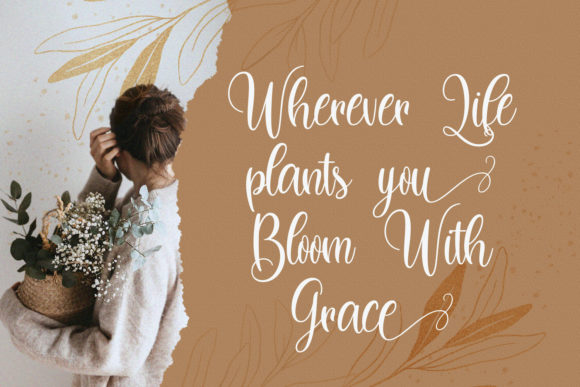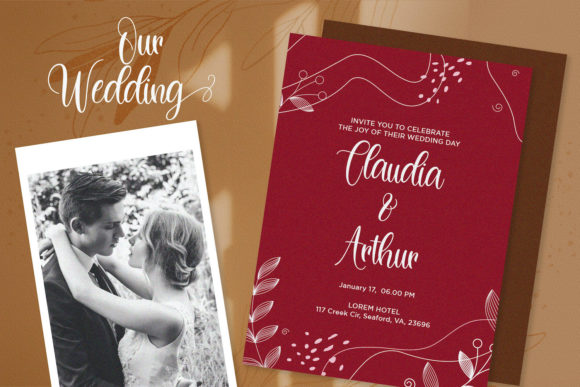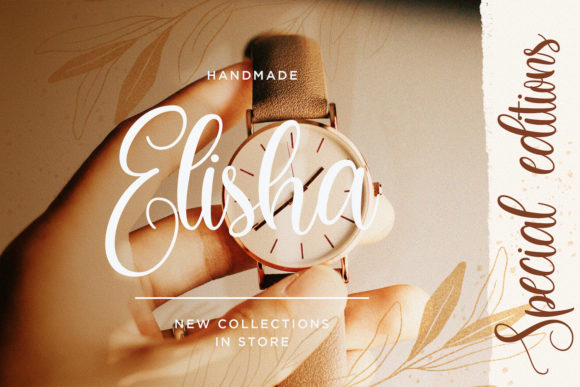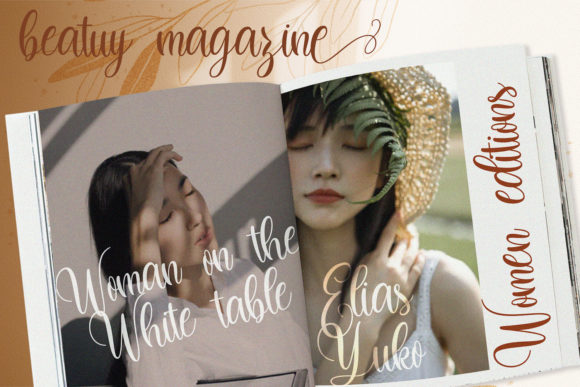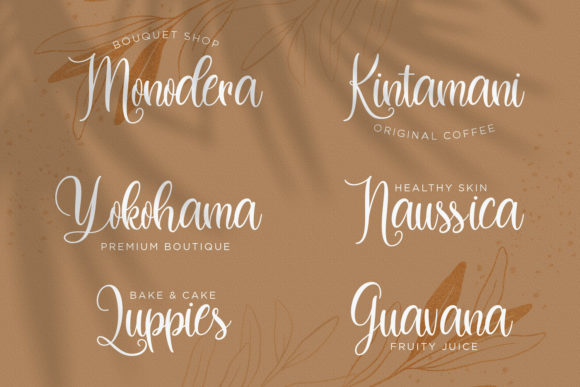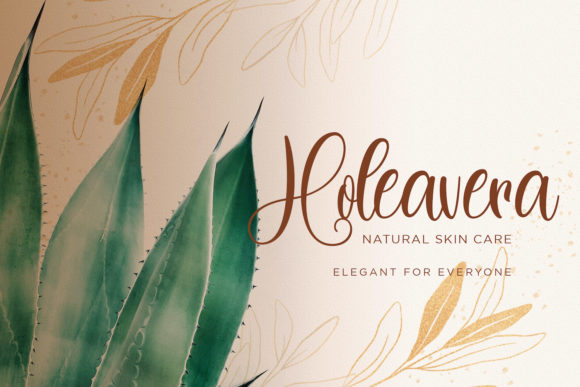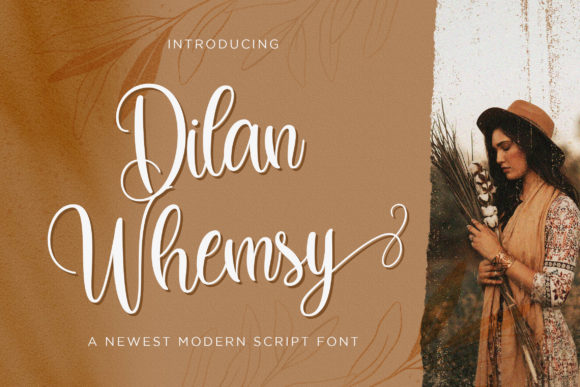
Introducing Dilan Whemsy Font: Elevate Your Designs with Elegance
In the world of typography, a font can make or break a design. For designers and crafters looking for that perfect touch of elegance and delicacy, the Dilan Whemsy Font is an exquisite choice. This beautifully crafted, handwritten font is not just a typeface; it’s an experience that brings a new level of sophistication and charm to any project.
The Essence of Dilan Whemsy
Dilan Whemsy is characterized by its delicate, elegant, and flowing script. Each character is meticulously designed to ensure a harmonious balance, making it versatile enough to complement a wide range of designs. Whether you’re working on a branding project, crafting beautiful stationery, or creating engaging digital content, Dilan Whemsy adds that unique flair that can transform your ideas into stunning visual realities.
Key Features of Dilan Whemsy Font
- PUA Encoding: Dilan Whemsy boasts PUA (Private Use Area) encoding, allowing easy access to a variety of glyphs and swashes. This feature empowers designers to explore a broader creative spectrum without the hassle of complicated font editing.
- Alternate Glyphs and Ligatures: The font comes equipped with a wealth of special features, including alternate glyphs and ligatures. These elements enable designers to add a personal touch to their work, ensuring each project stands out with its unique character.
- Wide Pool of Designs: The balanced and beautiful characters of Dilan Whemsy make it a perfect match for a diverse array of design projects. From feminine and elegant themes to more playful and whimsical concepts, this font adapts seamlessly.
Applications of Dilan Whemsy
The versatility of Dilan Whemsy makes it suitable for a multitude of applications:
- Branding and Logotypes: Create memorable brand identities with a touch of elegance.
- Stationery and Invitations: Elevate your paper goods with sophisticated and beautiful typography.
- Web and Digital Design: Enhance your digital platforms with a font that exudes both modernity and timelessness.
- Crafting and DIY Projects: Perfect for crafters, the font can add a professional and custom feel to handmade goods and DIY project documentation.
Tips for Using Dilan Whemsy Effectively
To make the most of Dilan Whemsy, consider the following tips:
- Experiment with Swashes: Use the glyphs and swashes to add dynamic beginnings and endings to your text.
- Mix and Match: Combine Dilan Whemsy with complementary fonts for contrast and visual interest.
- Adjust Size and Color: Play with the font size and color to create hierarchy and emphasis in your design.
Dilan Whemsy Font is more than just a typeface; it’s a design companion that brings elegance, versatility, and creativity to the table. With its delicate and flowing script, PUA encoding for easy access to glyphs and swashes, and features like alternate glyphs and ligatures, it’s a powerful tool for designers and crafters alike. Whether you’re looking to add a touch of sophistication to your branding, create beautiful stationery, or enhance your digital content, Dilan Whemsy is the perfect choice. Embrace the beauty of Dilan Whemsy and watch your designs come alive with elegance and charm.